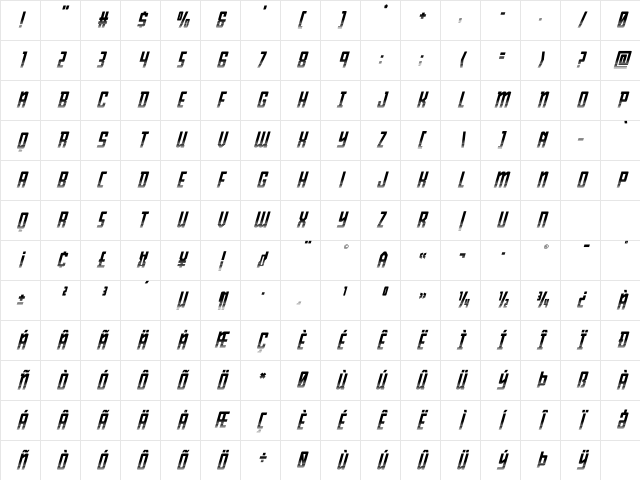
Complete Young Patriot Halftone Italic glyph index. Displaying only characters natively supported by Young Patriot Halftone Italic font.
Young Patriot Halftone is a composed and adaptable typeface that performs quietly and consistently across a wide range of design contexts. The slanted form adds forward momentum and visual energy.